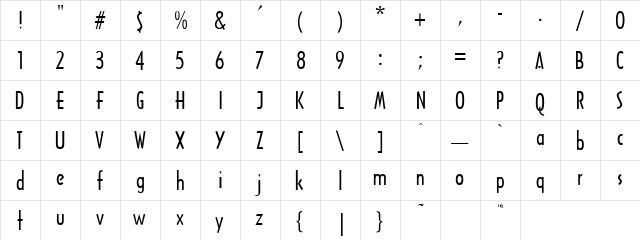
Draftsman Normal
Design Context for Draftsman Typeface
Draftsman is a composed and adaptable typeface that performs quietly and consistently across a wide range of design contexts.